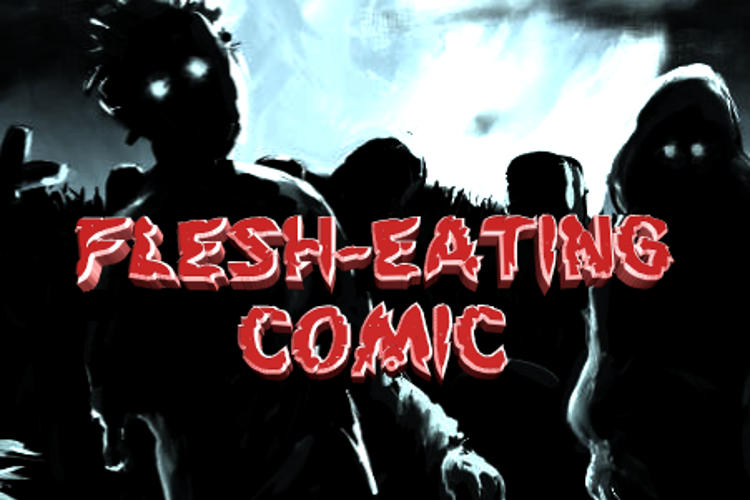
Flesh - Eating Comic Font
Whacked Regular Style
Flesh-Eating Comic Whacked Italic Style
Flesh-Eating Comic 3D Italic Style
Comic book word baloon/dialogue font for zombies, monsters and other horrific things. Meant for, and looks better at, smaller point sizes.